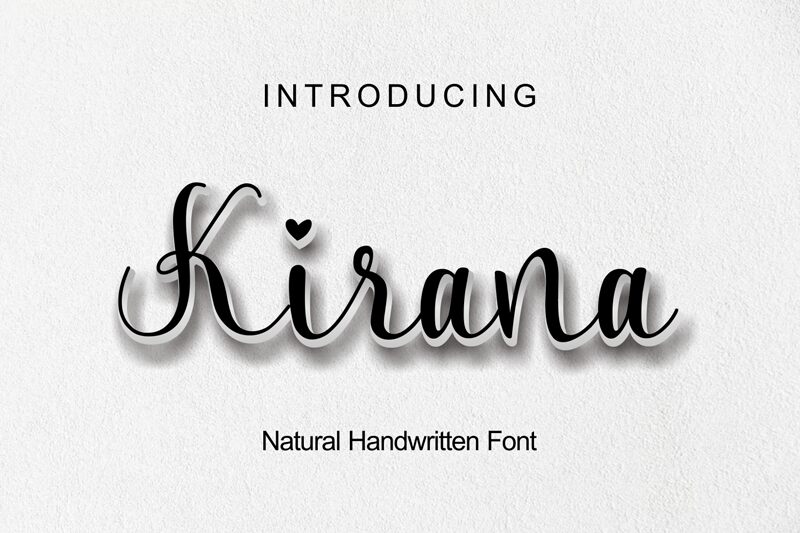
Kirana
Kirana font by Zamjump is a handwritten design that is elegant, expressive, and romantic in its cursive presentation. Its thin strokes, varying between thick and thin, make the font appear as if it was written with a brush pen. This inclusion guarantees an authentic and sophisticated tone of voice which will find its way to all your projects.
Whatever extravagant ideas you have in mind can be realized with this free handwritten font from greeting cards to invitations for engagements or anniversaries. With its captivating letters that barely connect to each other yet form beautiful phrases together, Kirana is also ideal for branding designs, packaging projects, logos, signatures, menu items display in restaurants etc..